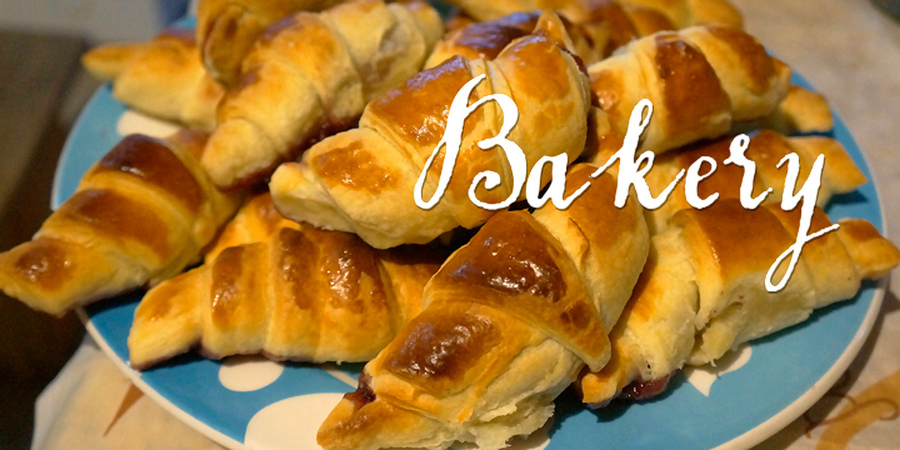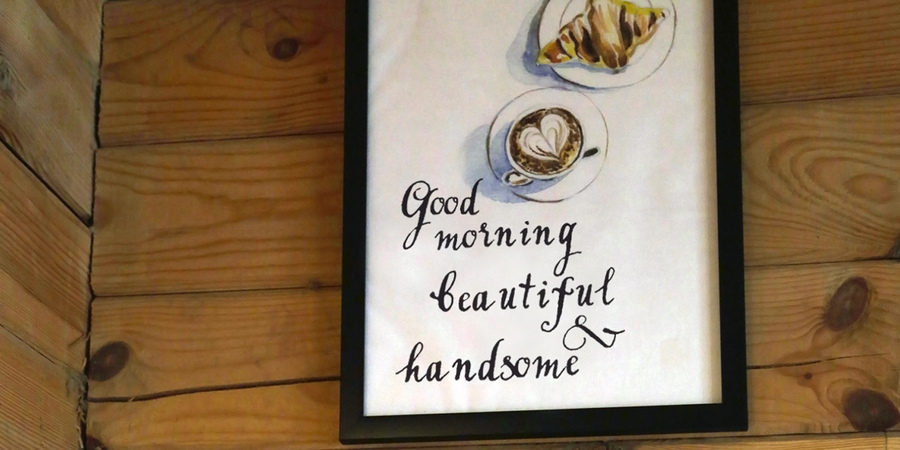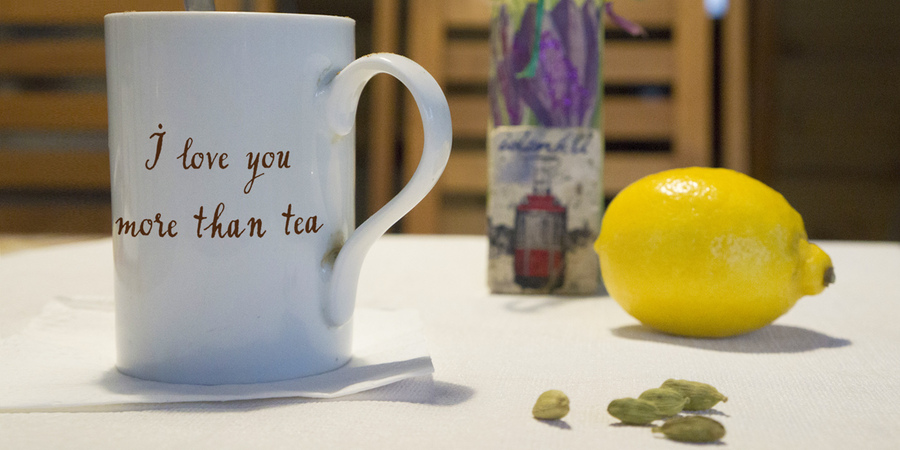
Bakery is a unique blend of classic and modern handwritten font. I used pen for calligraphy and black ink. Bakery perfect for wedding, event, invitation, escort card, table number, header menus, display, logos, slider blog, custom address, stamps, packaging, greeting card, etc.
This font includes Latin and Cyrillic codepages. Bakery was designed by Marina Mikhalskaya with the participation of Sergiy Tkachenko in 2017.